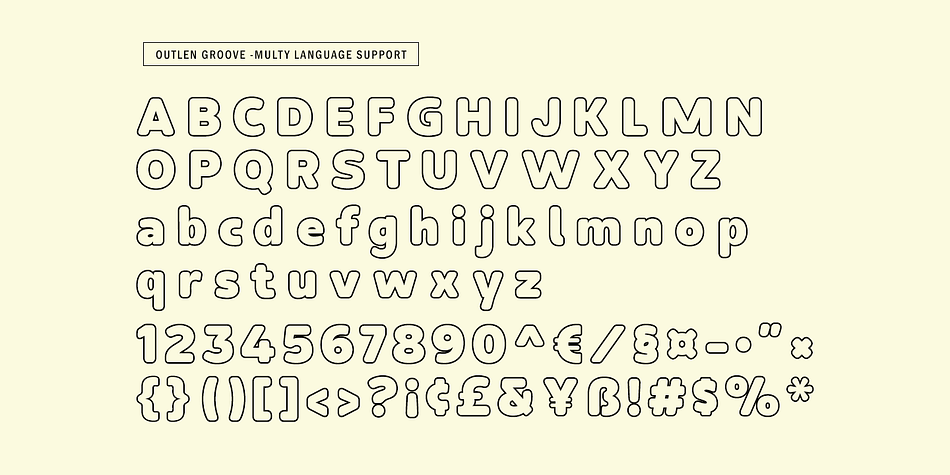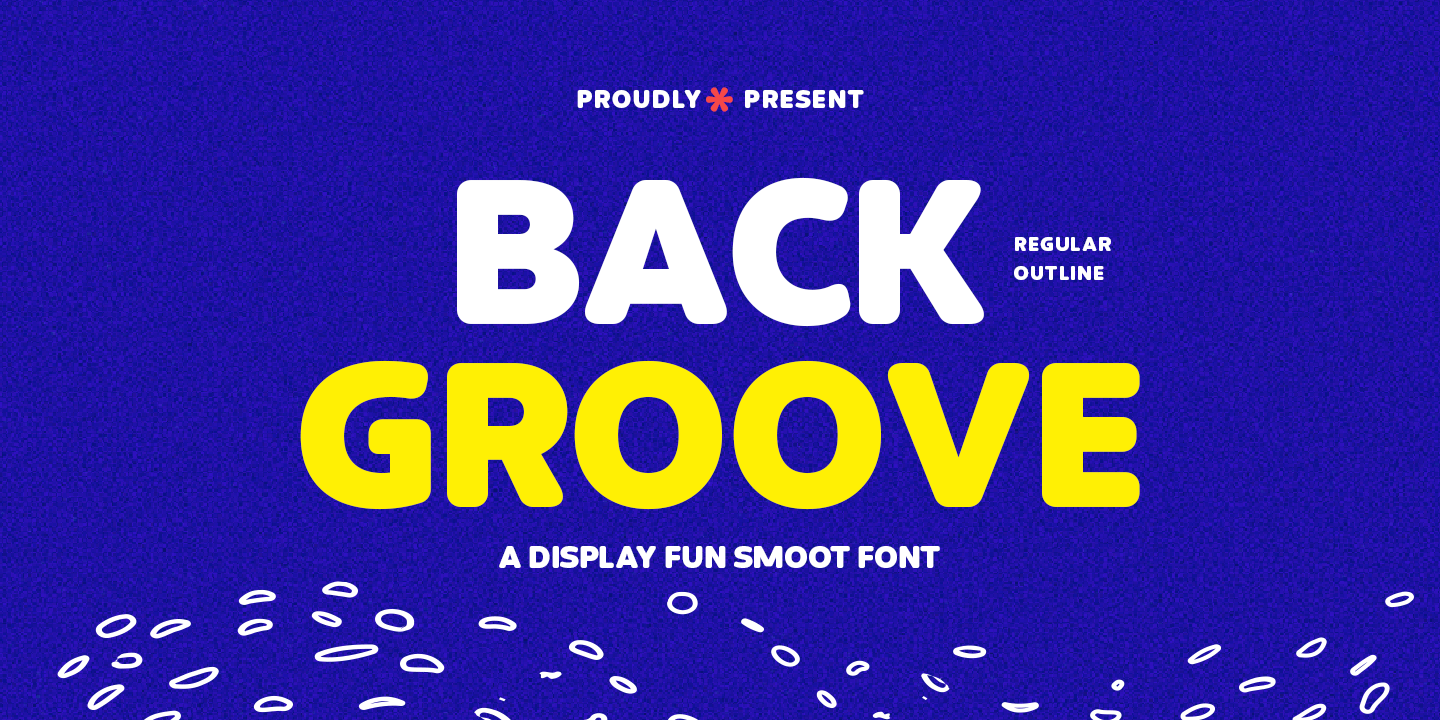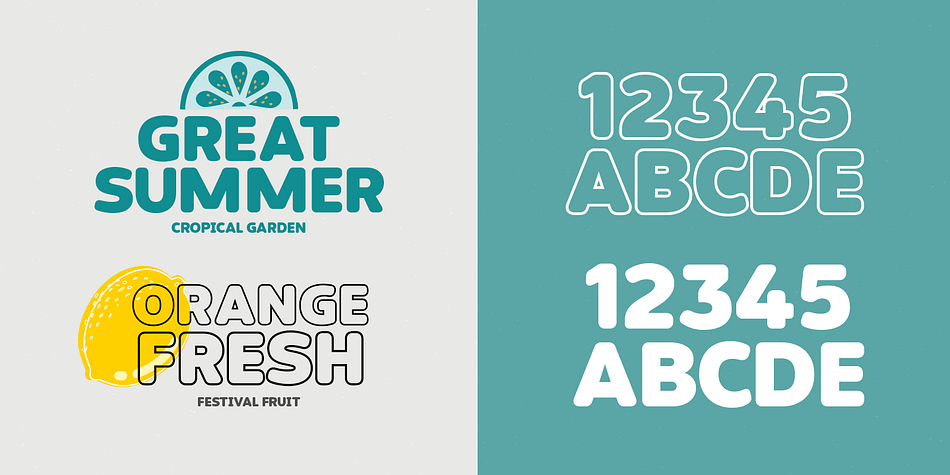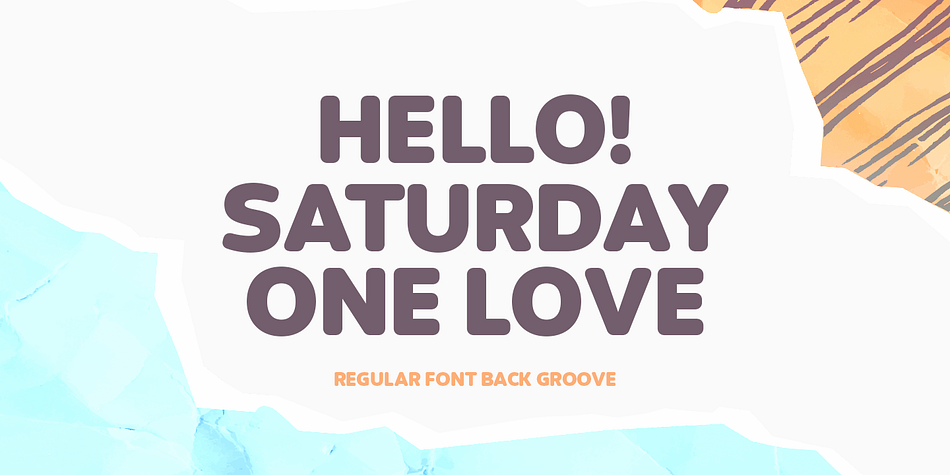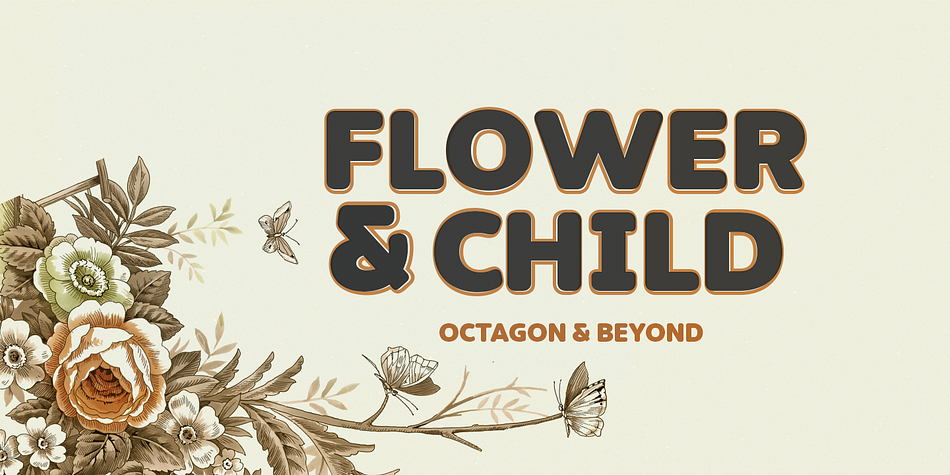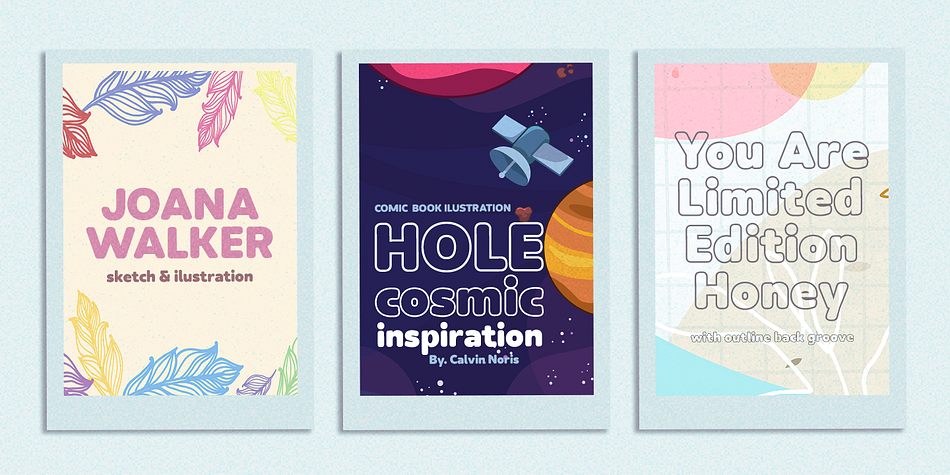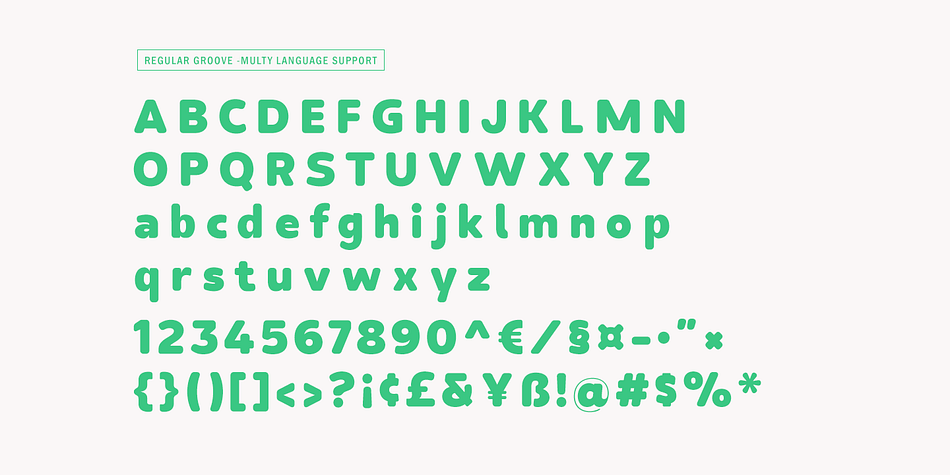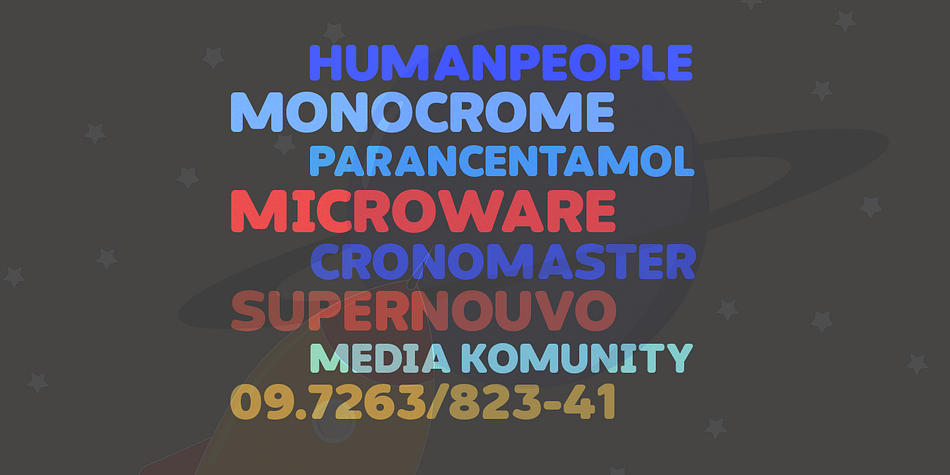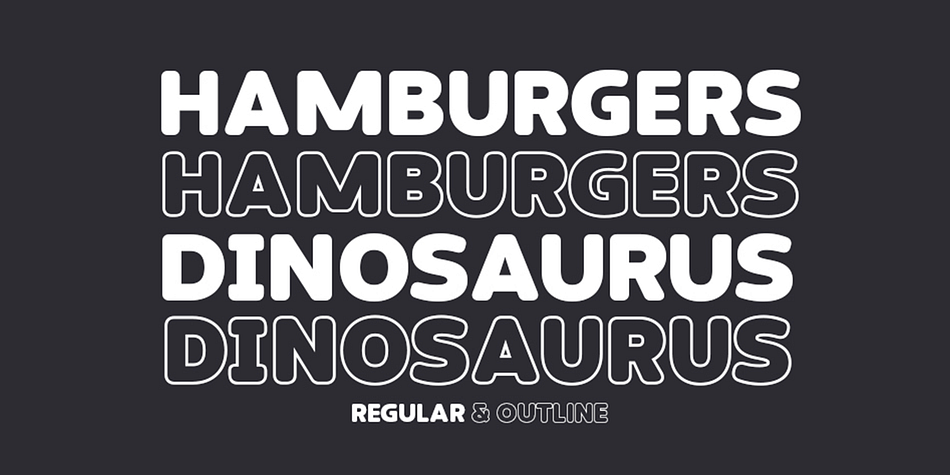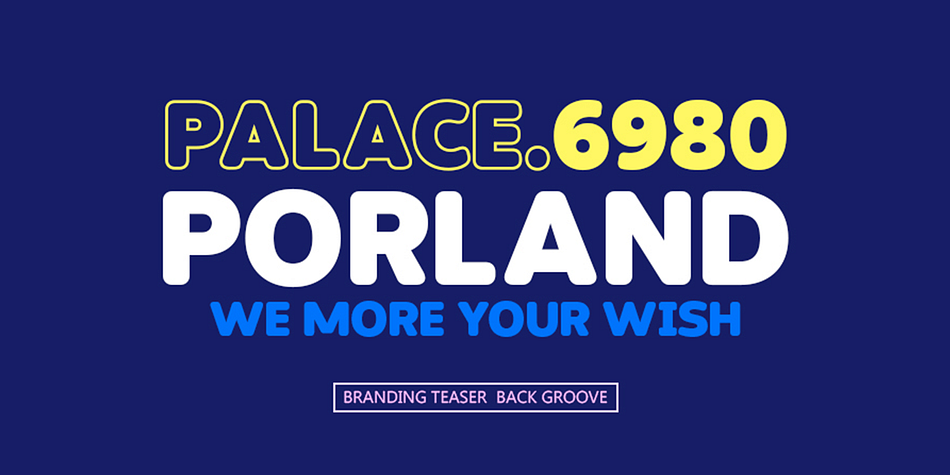
Back Groove
Back Groove is a display sans font family. This typeface has two styles and was published by Gatype.
The Back Groove font is smooth in totality and elegance. One of the best releases earlier this year, drawn with pinpoint accuracy. Back Groove has the perfect simplicity and refinement for your next project.
Back Groove It perfectly represents a precise and vintage aesthetic. Because it’s guided by Outlen’s Back Groove I recommend this font for your next celebrations, logos, invitations, and home decor projects that need a touch of compact alternative combinations!